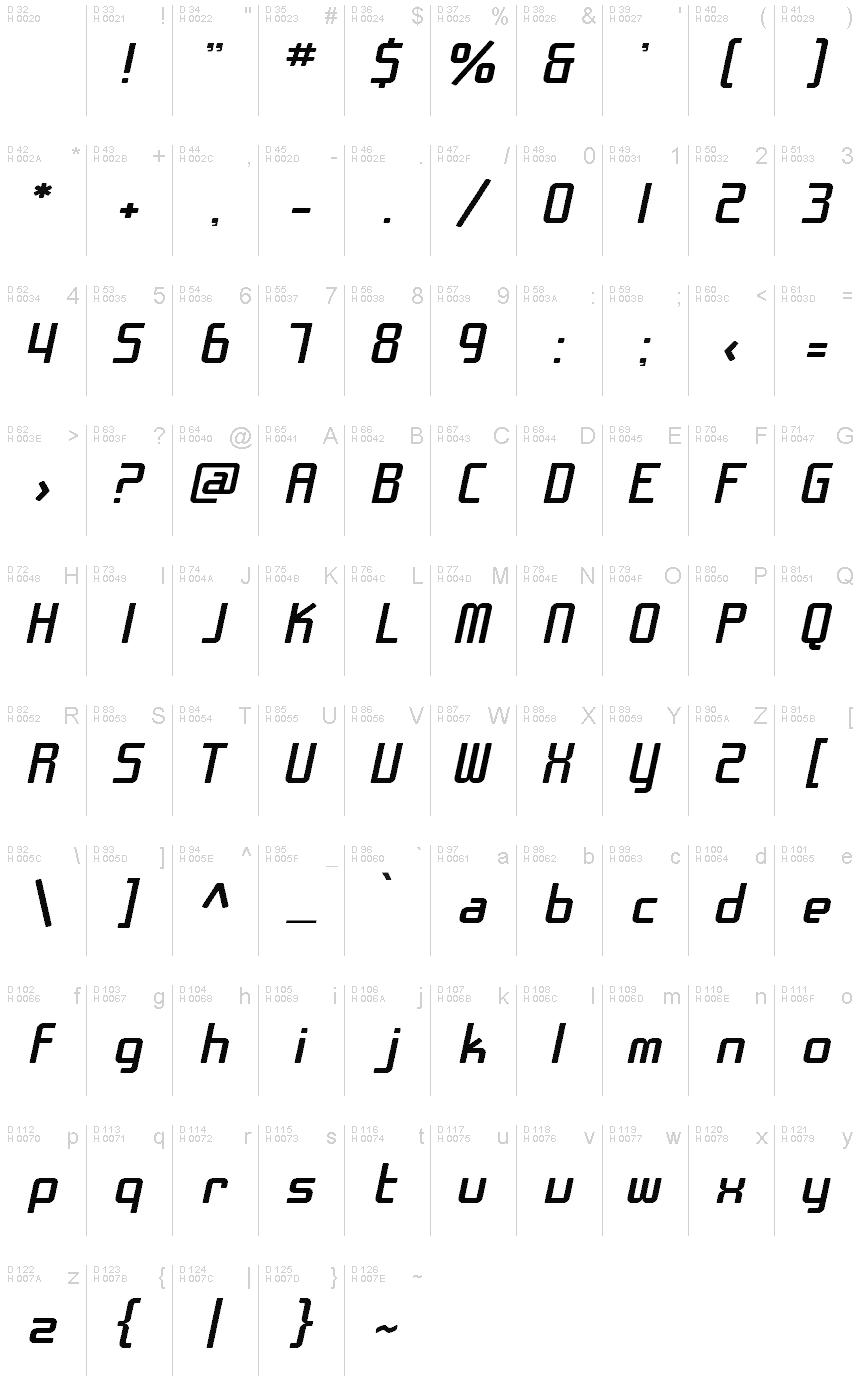
SF Chrome Fenders Extended Oblique
SF Chrome Fenders Extended Oblique is a standout display font from the SF Chrome Fenders family, masterfully designed by ShyFonts Type Foundry. This typeface encapsulates an edgy techno style with its sleek, angular contours and dynamic oblique stance, exuding an aura of speed and modernity. The extended characters are crafted to grab attention, making it an excellent choice for impactful headlines and branding where a futuristic touch is desired.
The precise geometric cuts and mirrored curves give this font a mechanical sophistication that resonates with themes of innovation and precision engineering. Its bold presence on the page promises legibility at various sizes while maintaining its distinct character.
Perfect for creative endeavors that require a touch of the avant-garde—from poster designs to digital interfaces—SF Chrome Fenders Extended Oblique delivers versatility without sacrificing its stylized edge. Whether you're looking to infuse your project with the essence of high-tech or simply make a statement that can't be ignored, this font offers endless possibilities for designers seeking to push boundaries.